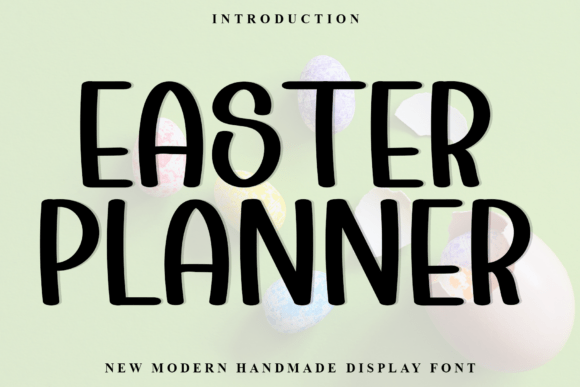
Get Ready to Spring into Creativity with the Easterplanner Font
It’s that time of the year when the world around us transforms into a vibrant tapestry of colors and life. As a creative, you’re probably itching to break out the Easter-themed designs, invitations, and social media posts to celebrate the season. You start brainstorming ideas, pouring over inspiration boards, and sketching out rough drafts. But what really sets your designs apart from the rest? A unique and captivating font, of course!
Enter the Easterplanner Font – a charming, hand-drawn font that exudes warmth and friendliness. Its playful strokes and rounded edges create a relaxed and approachable feel, perfect for personal projects, invitations, and social media graphics. Whether you’re a seasoned designer or a hobbyist, the Easterplanner Font is an invaluable addition to your creative toolkit, offering endless possibilities for making your designs truly special.
Easterplanner Font Key Features
- Unique Characteristics: Easterplanner Font boasts a unique, playful design with Easter-themed elements, making it perfect for seasonal and holiday-related projects.
- Font Weight and Style: Easterplanner Font comes in 4 different weights (Light, Regular, Bold, and Black) and 2 styles (Regular and Italic), offering flexibility for various design needs.
Easterplanner Font Review
As a designer, I’ve had the chance to work with the Easterplanner font, and here’s my honest review.
- Cute and playful vibe – This font perfectly captures the whimsical feel of Easter, making it ideal for spring and Easter-themed projects.
- Good legibility – The font is clear and easy to read, even at smaller sizes.
- Customizable – Easterplanner offers a range of weights and styles, allowing for some flexibility in design.
- Limited use cases – While great for Easter-themed projects, the font may not be suitable for more formal or corporate designs.
- Lack of boldness – The font’s bold weight feels a bit too light, which may not be ideal for headings or titles.
- No Cyrillic or Asian language support – This may be a limitation for designers working on projects that require support for these languages.
Overall, Easterplanner font is a charming addition to any designer’s toolkit, but it’s essential to consider its limitations before using it in a project. With some creative workarounds, it can be a great choice for the right kind of design.
The Easterplanner Font is perfect for:
- Easter-themed designs and graphics.
- Spring and Easter-themed invitations and cards.
- Custom Easter-themed typography and graphics.
Alternatives to Easterplanner Font
Great Vibes is a modern, cursive script font that can be used for various design purposes, such as logos, invitations, and signage. It is a more elegant and refined alternative to Easterplanner Font.
Great Vibes is a more versatile font, suitable for a wide range of designs, whereas Easterplanner Font has a more playful, whimsical feel.